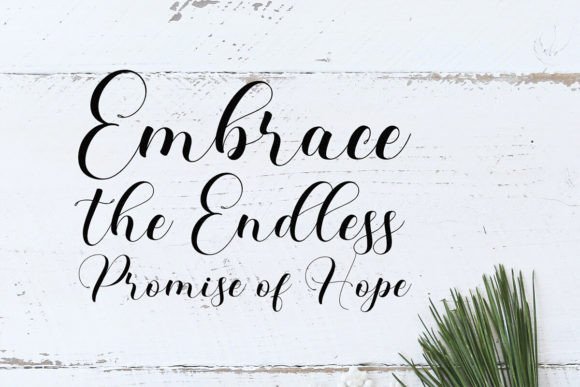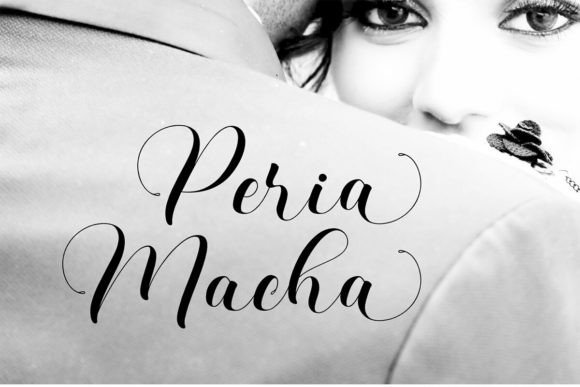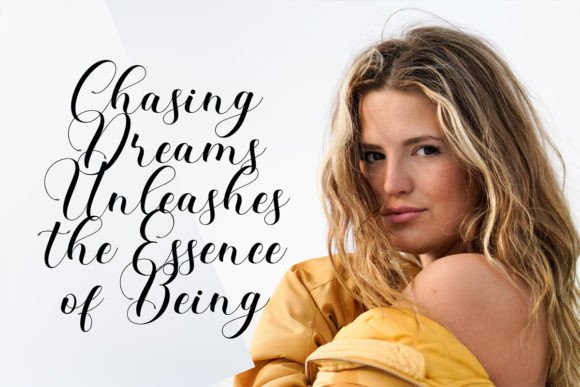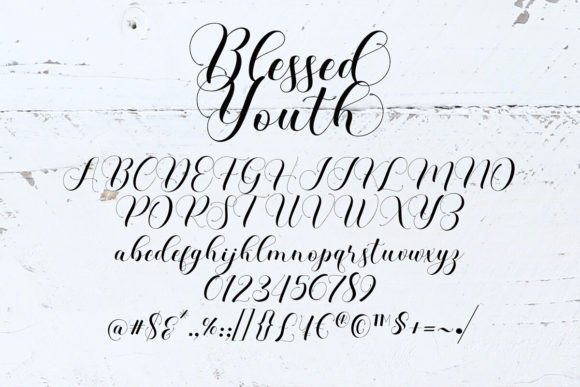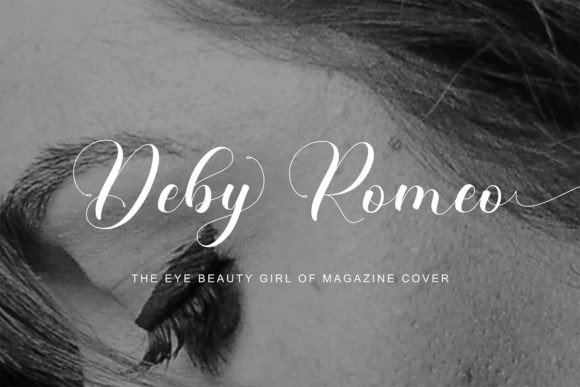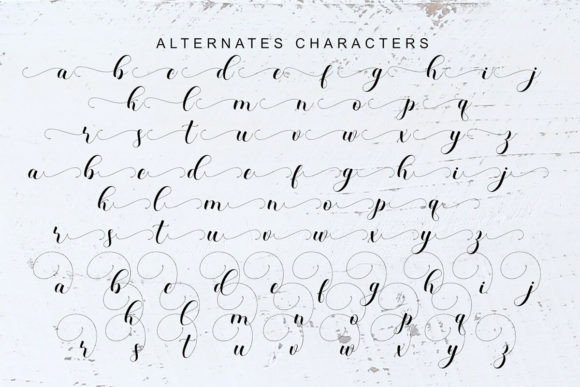
The Blessed Youth Font: Elevate Your Designs with Elegant Sophistication
I’ll never forget the time I was working on a wedding invitation design project, and my client asked for a font that exuded elegance and sophistication. I scoured the internet, tried out countless fonts, but nothing seemed quite right. That was until I stumbled upon the Blessed Youth Script font. It was like a breath of fresh air – the perfect blend of chic and handwritten charm. In this article, I’ll share my experience with this beautiful font, its features, and how you can make the most of it in your designs.
An Honest Review of Blessed Youth Script
• ✨ Elegant ligatures that add a touch of sophistication to any design
• 💫 Perfect for a range of projects, from logos and wedding designs to social media posts and product packaging
• 🎨 Seamless handwritten touch that adds a personal feel to designs
While Blessed Youth Script is an amazing font, there are a few things to keep in mind:
• ⚠️ Some users may find the font a bit too ornate for certain projects, such as body text or very casual designs
• 🤔 Limited use of uppercase letters, which may require creative workarounds for certain design elements
The Story Behind Blessed Youth Script
Blessed Youth Script was designed with the intention of creating a font that would bring a touch of elegance and sophistication to any design. The designer, inspired by the beauty of handwritten scripts, set out to create a font that would be both versatile and visually stunning. With its PUA encoding and range of OpenType features, Blessed Youth Script has become a go-to font for designers and crafters alike.
Q: Is Blessed Youth Script suitable for body text?
A: While Blessed Youth Script is a beautiful font, it may not be the best choice for body text due to its ornate nature. It’s better suited for headlines, titles, and short blocks of text.